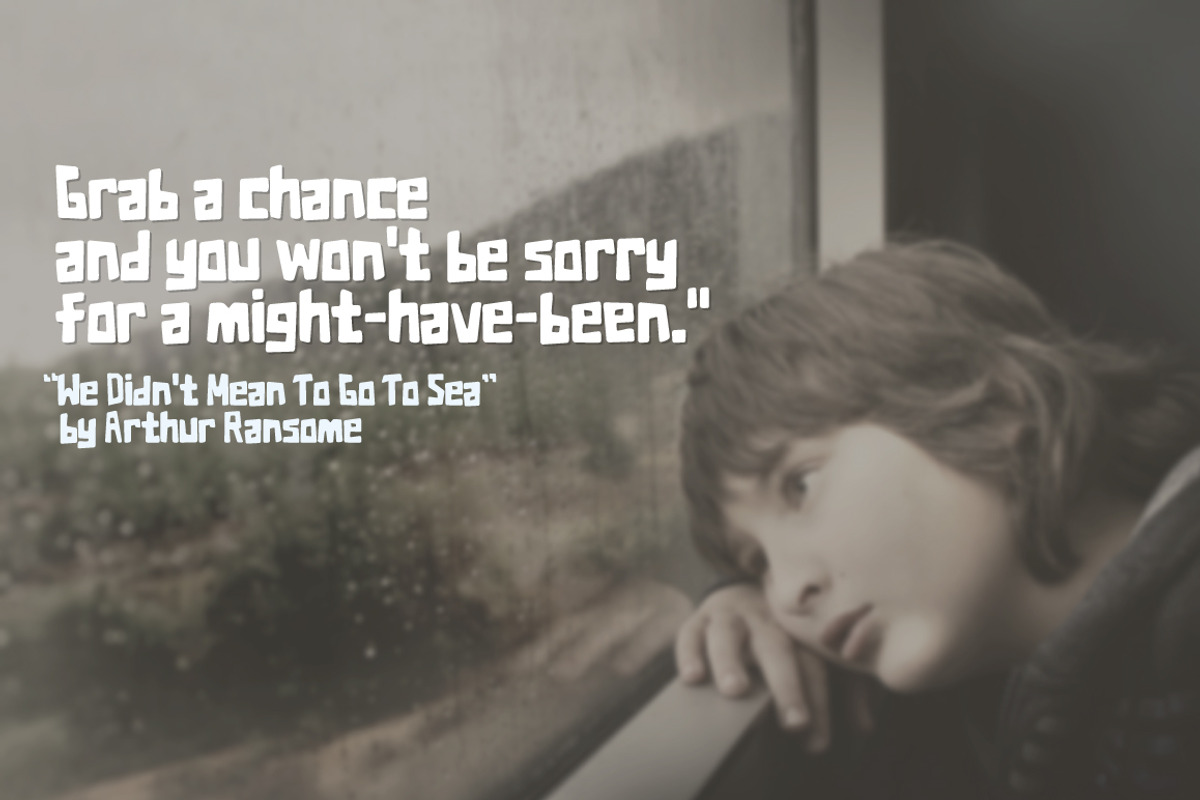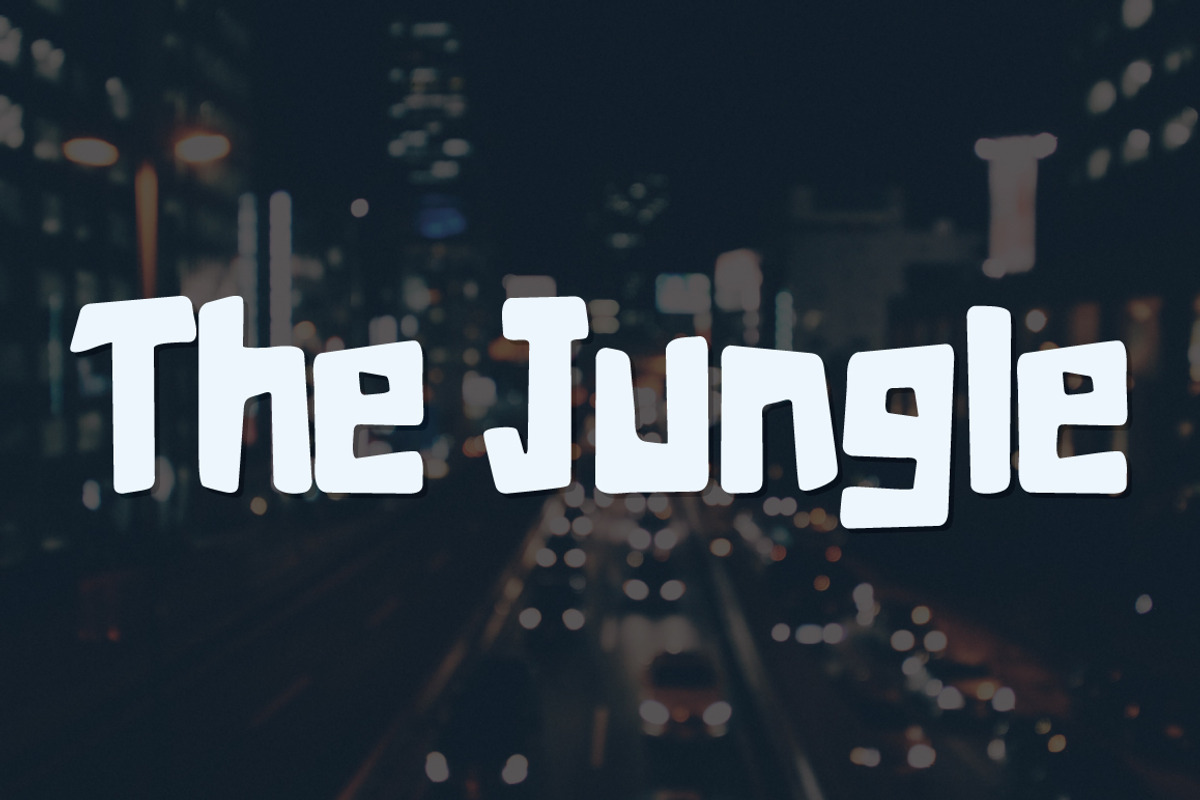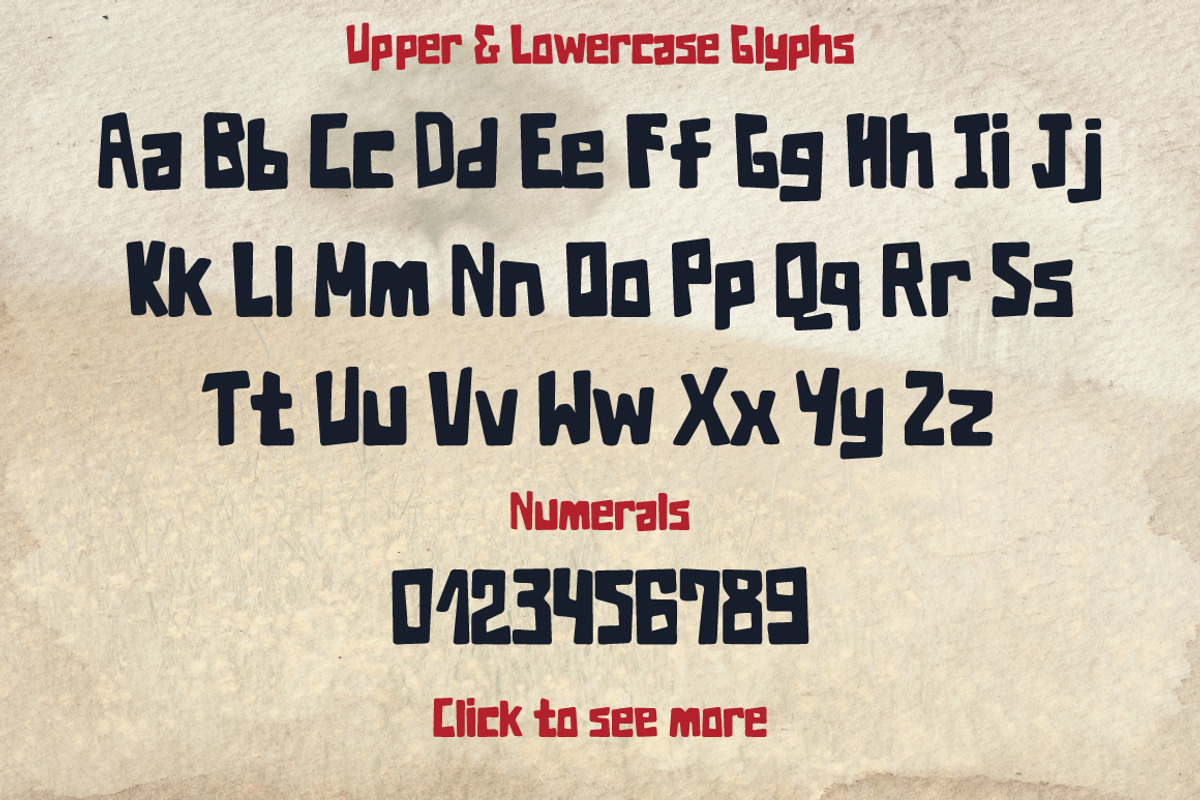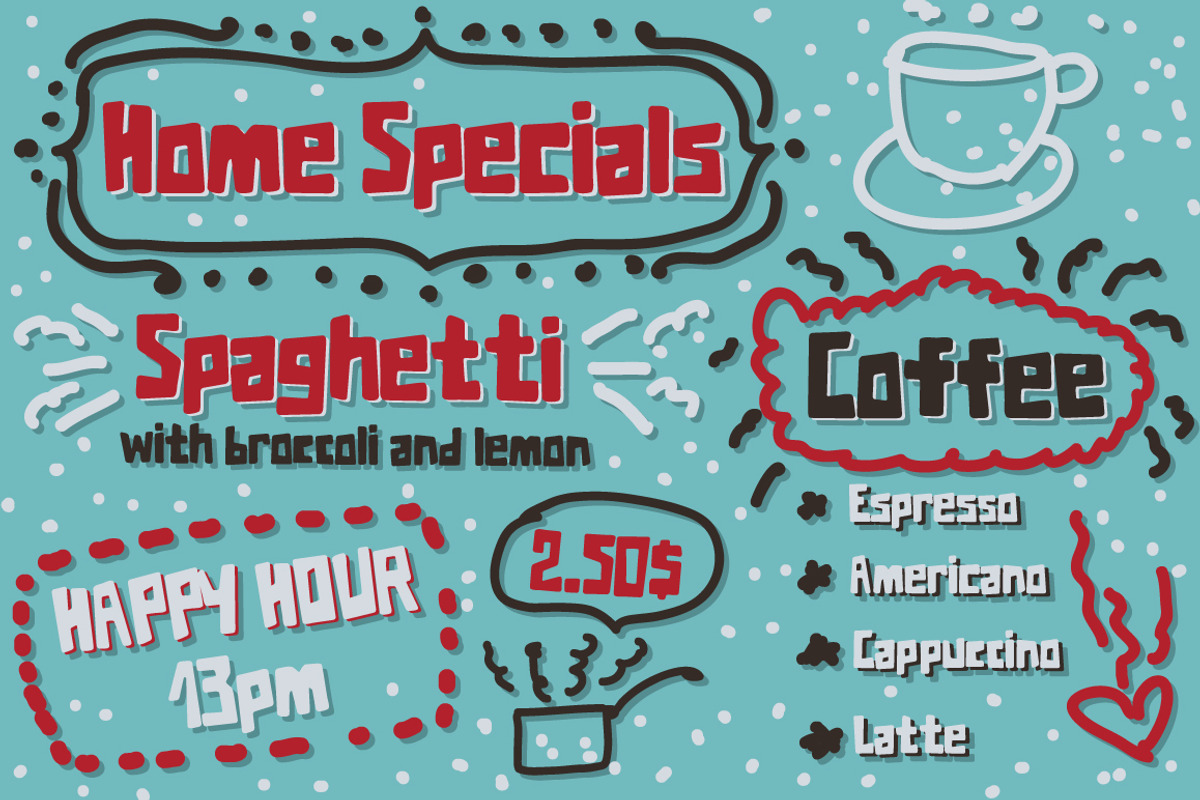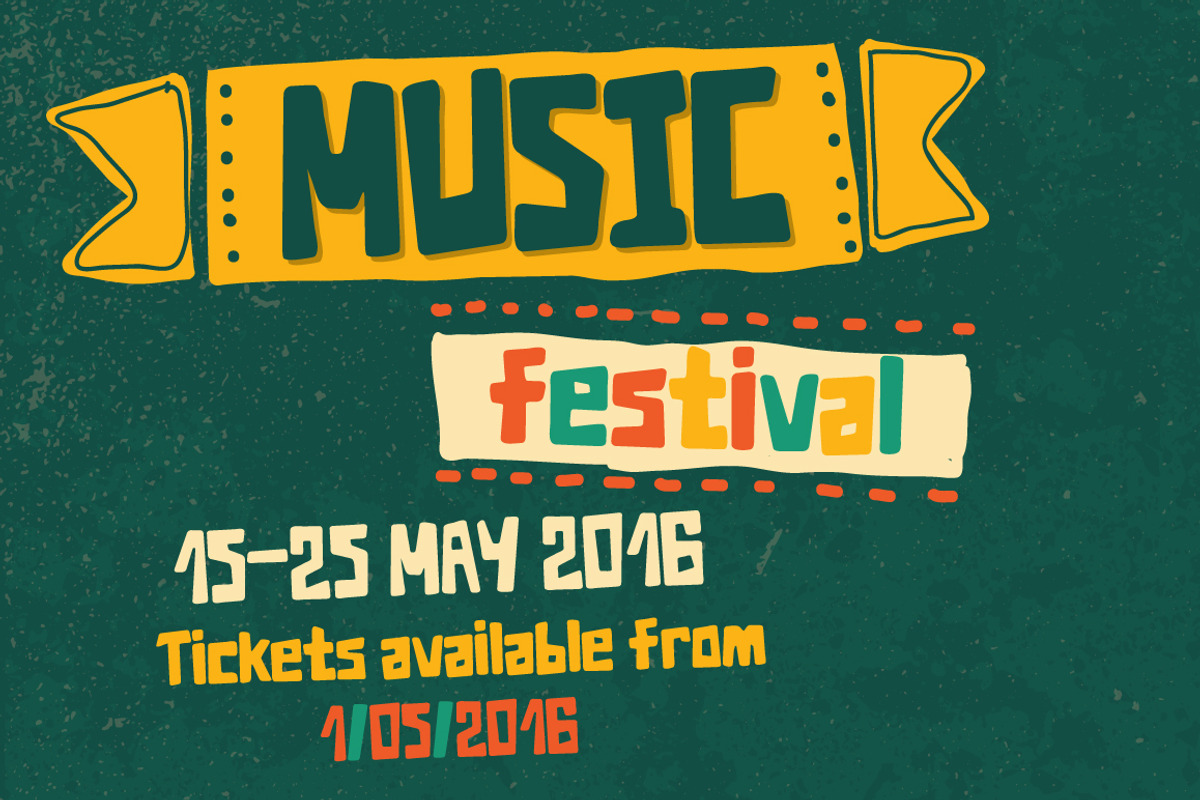
The Jungle typeface
The Jungle typeface by Anna Ivanir is a font selected for branding, posters, packaging, typography.
- Characters included: Upper and Lowercase glyphs Numerals Punctuation Alternates for creating a hand feel International glyphs Files included
Why The Jungle typeface is worth a look
The Jungle typeface by Anna Ivanir fits naturally into Branding, posters, packaging, typography.